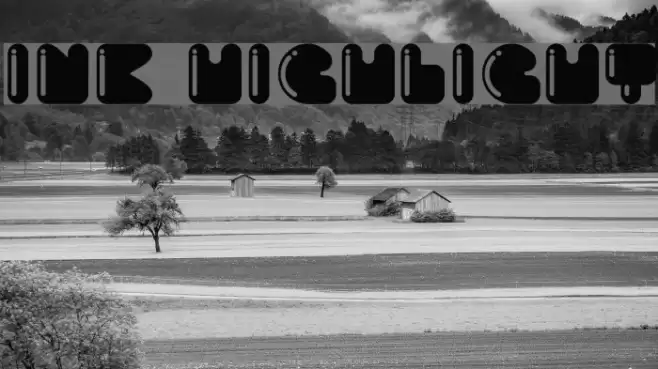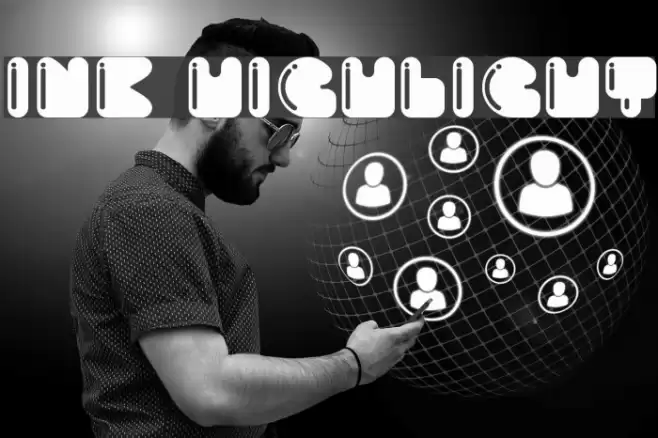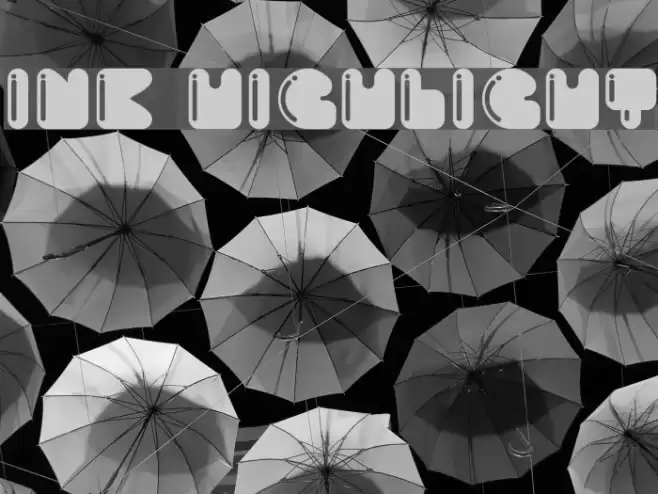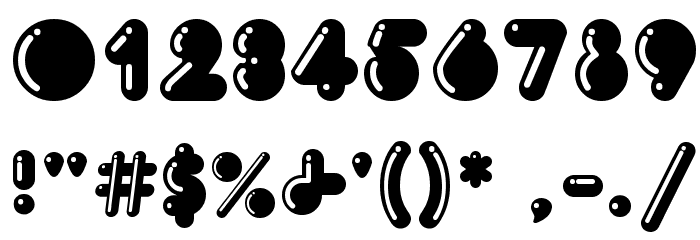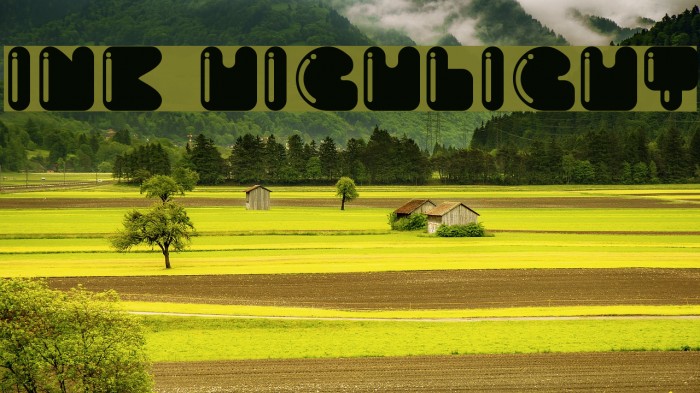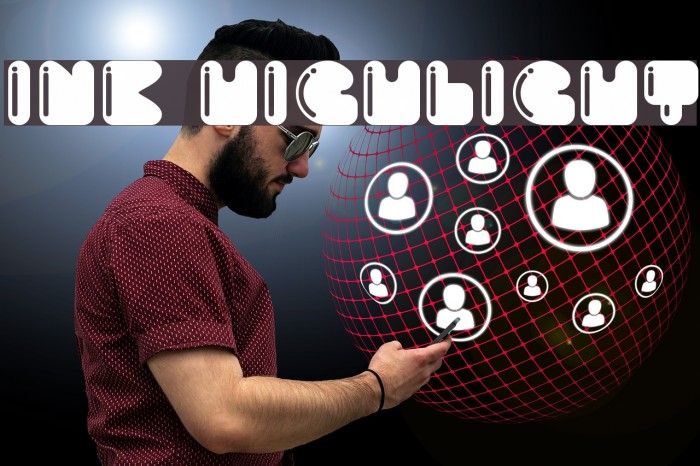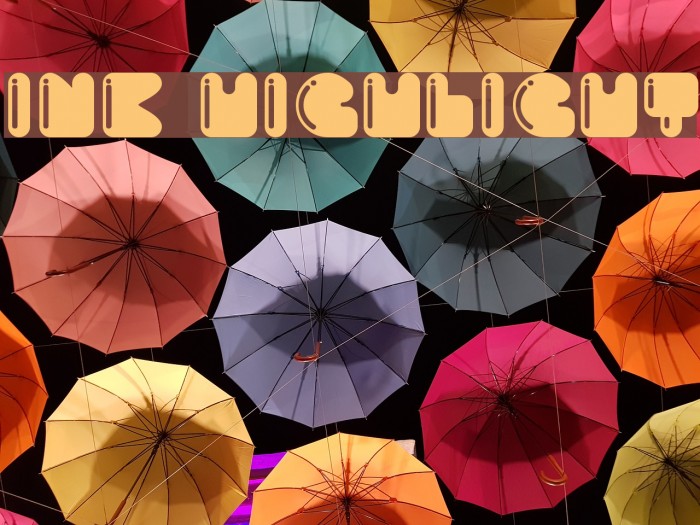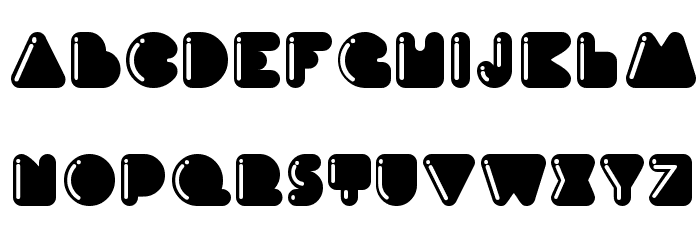
Ink Highlight Font
Ink Highlight Description
This font features a bold, playful style with a distinct bubble-like appearance. Each character is designed with rounded edges and a glossy, three-dimensional effect that resembles ink or liquid droplets. The letters are evenly spaced, creating a harmonious and cohesive look. The font's unique style makes it stand out, with a modern and artistic flair that is both eye-catching and memorable. Its boldness and decorative elements make it suitable for creative projects that require a fun and engaging visual impact.
A bold, playful font with a bubble-like, glossy appearance from Crazy fonts.
- Proposed Projects: Ideal for children's book covers, playful branding, event posters, and creative digital content.
- Overall Style: Modern, Decorative